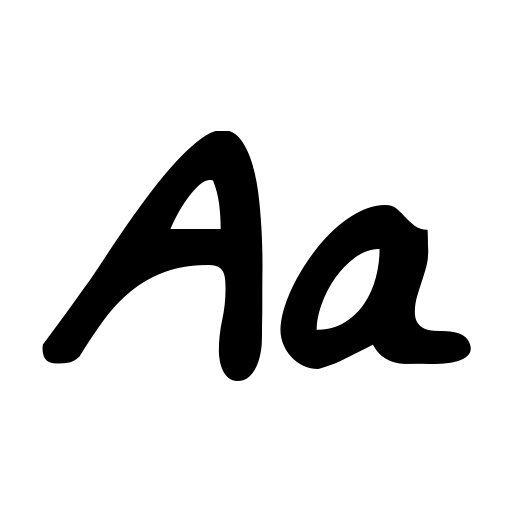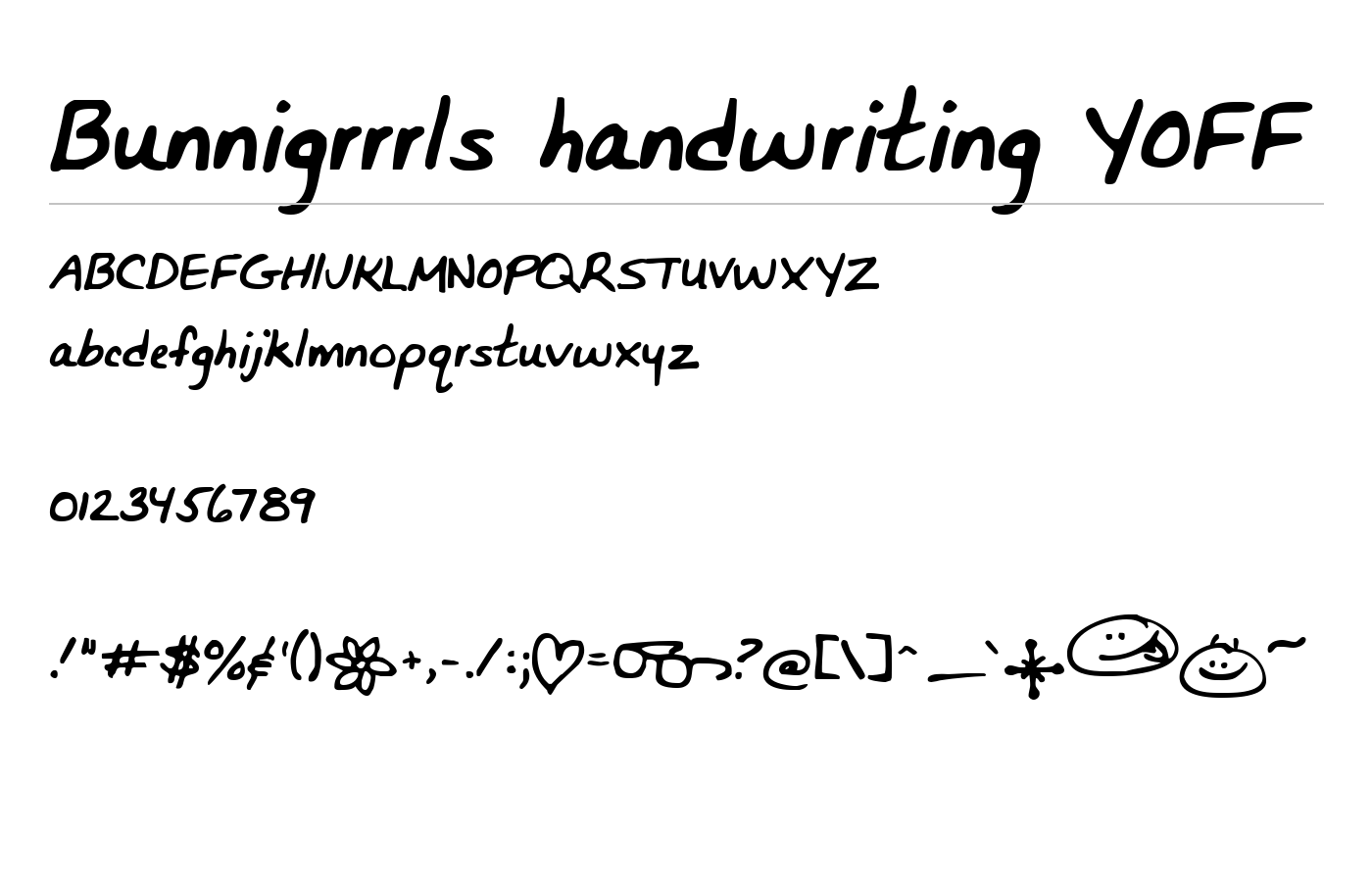
Bunnigrrrls Handwriting YOFF is a playful and informal handwritten sans serif font with a casual, friendly feel. Its irregular, rounded strokes and slightly uneven letterforms create a warm and approachable personality, making it great for personal projects, children’s materials, or any design needing a lively, authentic touch. This font works well in creative headlines, greeting cards, and social media graphics where a relaxed and cheerful vibe is desired.
Bunnigrrrls handwriting YOFF Font
About Bunnigrrrls handwriting YOFF Font
| Font family | Bunnigrrrls handwriting YOFF Font |
| Designer | Your Own Font Foundry |